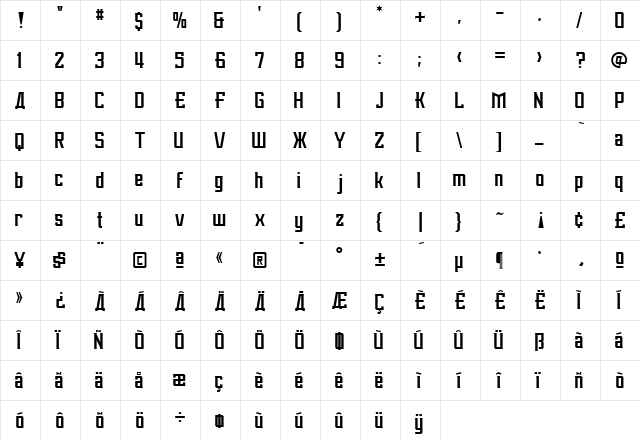
AlekseiSolidA Regular
Design Context for AlekseiSolidA Typeface
AlekseiSolidA is a composed and adaptable typeface that performs quietly and consistently across a wide range of design contexts.